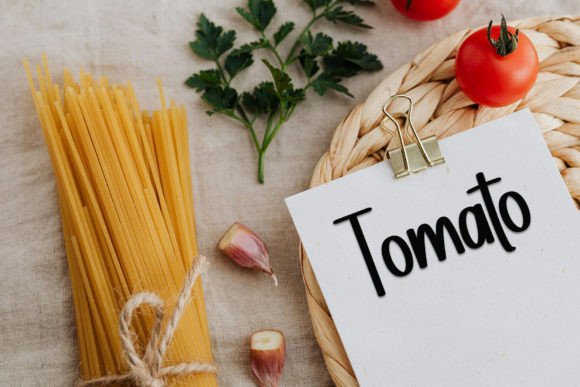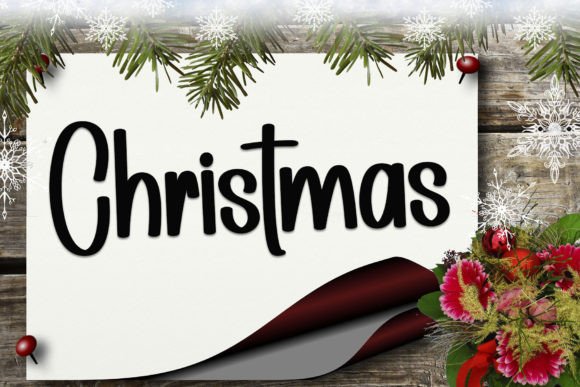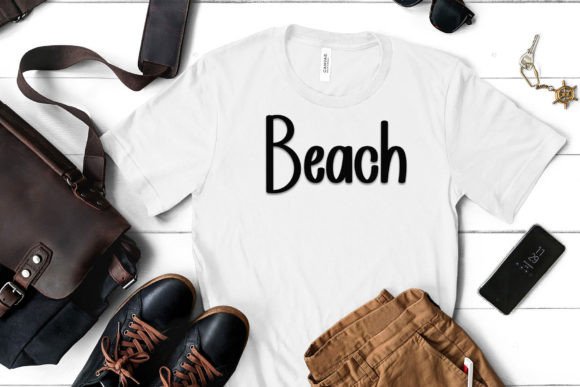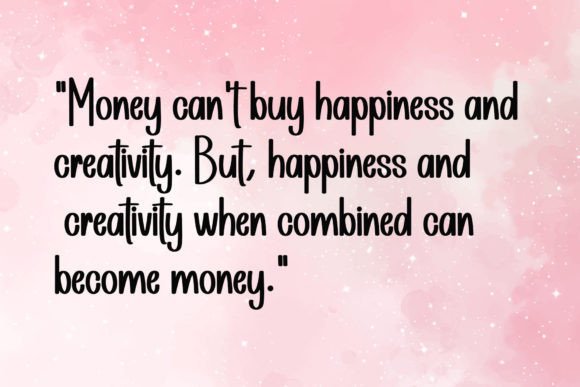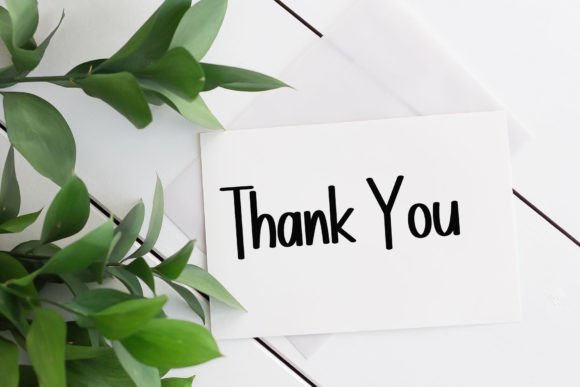
Introducing Beautiful Handmade Font: Elevate Your Designs with Timeless Elegance
In the world of typography, a beautiful handmade font can make all the difference in adding a touch of sophistication and personality to your design projects. If you’re a designer, crafty enthusiast, or simply someone who appreciates the art of beautiful lettering, you’re in luck! We’re excited to introduce you to Beautiful Handmade, a trendy handwritten font that embodies the essence of contemporary elegance and classic calligraphy.
The Inspiration Behind Beautiful Handmade Font
Beautiful Handmade font is inspired by the timeless classics of calligraphy, reimagined with a modern twist. The creators of this stunning font have meticulously crafted each letter to exude a sense of refinement and poise, perfect for designers seeking to add a touch of luxury to their work. Whether you’re working on a branding project, wedding invitation, or packaging design, Beautiful Handmade font is sure to impress.
Key Features of Beautiful Handmade Font
• Contemporary Atmosphere: Beautiful Handmade font boasts a fresh and modern aesthetic that’s perfect for designers looking to create unique and eye-catching designs.
• Impeccable Form: Each letter has been carefully crafted to ensure impeccable form and flawless execution, making it ideal for both digital and print applications.
• Elegance and Class: This beautiful handmade font adds a touch of sophistication and elegance to any design project, making it perfect for high-end branding, luxury packaging, and more.
• Trendy and Versatile: Beautiful Handmade font is versatile and can be used for a wide range of design projects, from wedding invitations and stationery to advertising and editorial design.
Why Choose Beautiful Handmade Font?
With so many fonts available, why choose Beautiful Handmade? Here are just a few reasons why this stunning font stands out from the rest:
• Unique and Distinctive: Beautiful Handmade font offers a unique and distinctive look that’s sure to set your designs apart from the crowd.
• Easy to Read: Despite its elegant and refined appearance, Beautiful Handmade font is surprisingly easy to read, making it perfect for body text and headlines.
• Highly Versatile: This font can be used for a wide range of design projects, from digital applications to print materials.
• Timeless Appeal: Beautiful Handmade font has a timeless quality that ensures it will remain stylish and relevant for years to come.
How to Use Beautiful Handmade Font in Your Designs
• Pair it with Neutrals: Beautiful Handmade font pairs beautifully with neutral colors like white, black, and gray, allowing the font to take center stage.
• Mix and Match: Experiment with different font combinations to create visually interesting designs that showcase the unique qualities of Beautiful Handmade font.
• Use for Headlines and Titles: This font is perfect for headlines, titles, and other display text, where its elegant and refined appearance can shine.
• Add a Personal Touch: Use Beautiful Handmade font to add a personal touch to your designs, whether it’s a handwritten note or a custom illustration.
In conclusion, Beautiful Handmade font is a stunning addition to any designer’s toolkit. With its timeless elegance, impeccable form, and contemporary atmosphere, this beautiful handmade font is sure to elevate your designs and leave a lasting impression. Whether you’re a seasoned designer or a crafty enthusiast, Beautiful Handmade font is a must-have for anyone looking to add a touch of sophistication and class to their work.